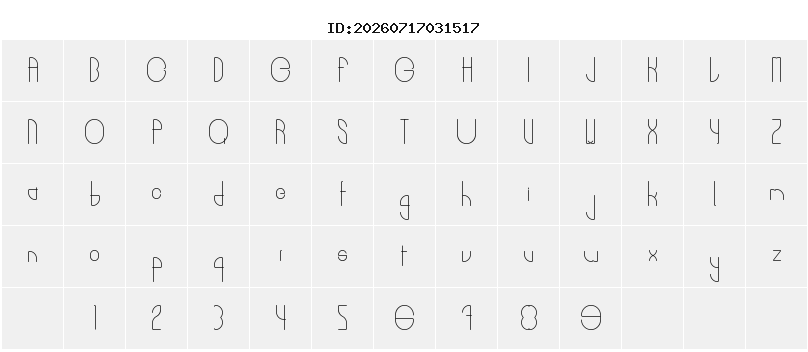
burger Preview
• Font Name: burger
• Font ID: burger:Version 1.00
• Full Font Name: burger
• Version: Version 1.00 March 27, 2013, initial release
• PostScript Name: burger
• Designer: ABDELAZIZ Khaled
About burger.ttf
burger.ttf is a modern, elegant sans-serif font designed for ultimate readability and visual harmony. Perfect for branding, headlines, web design, and print materials.